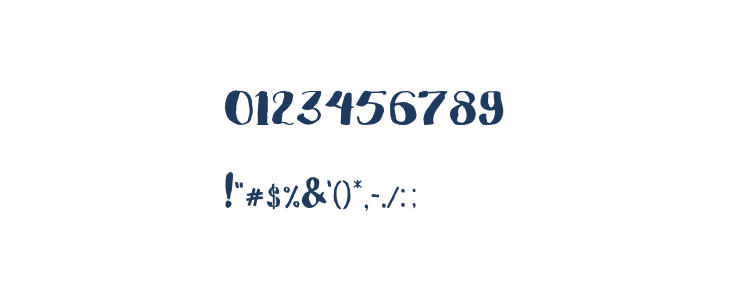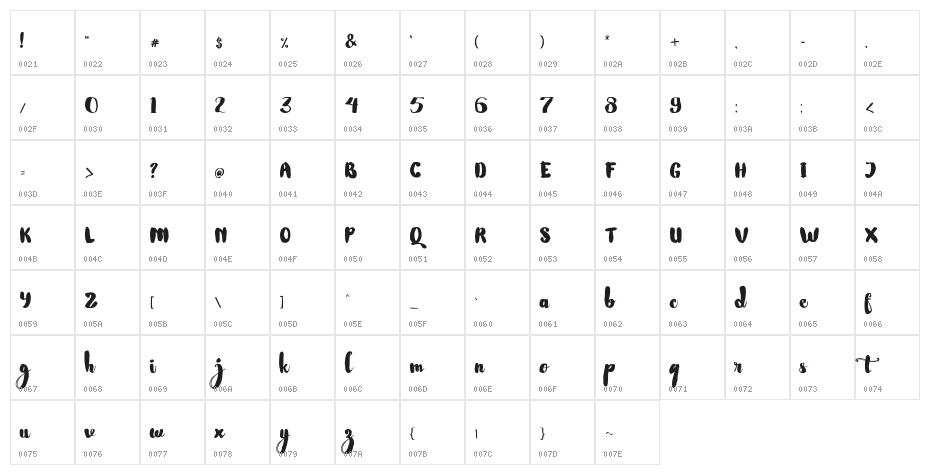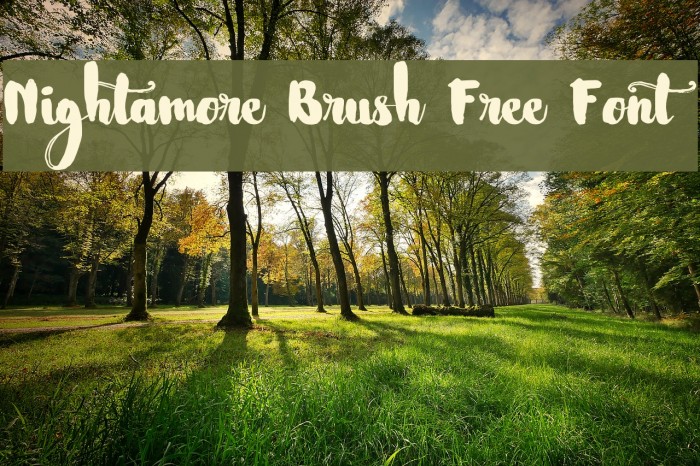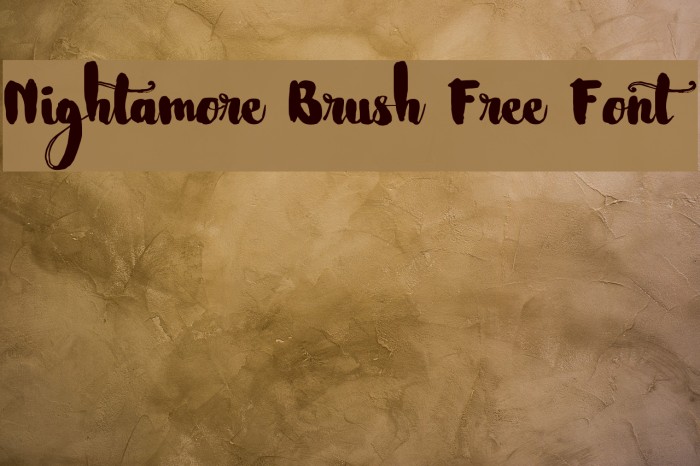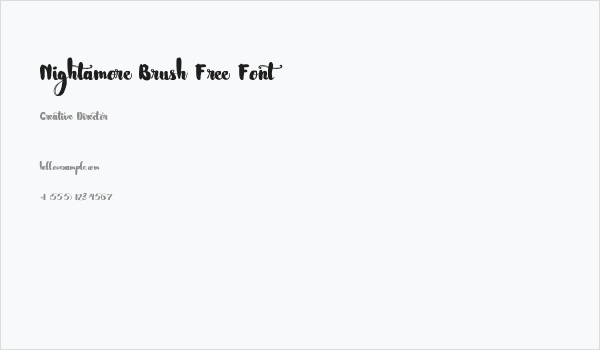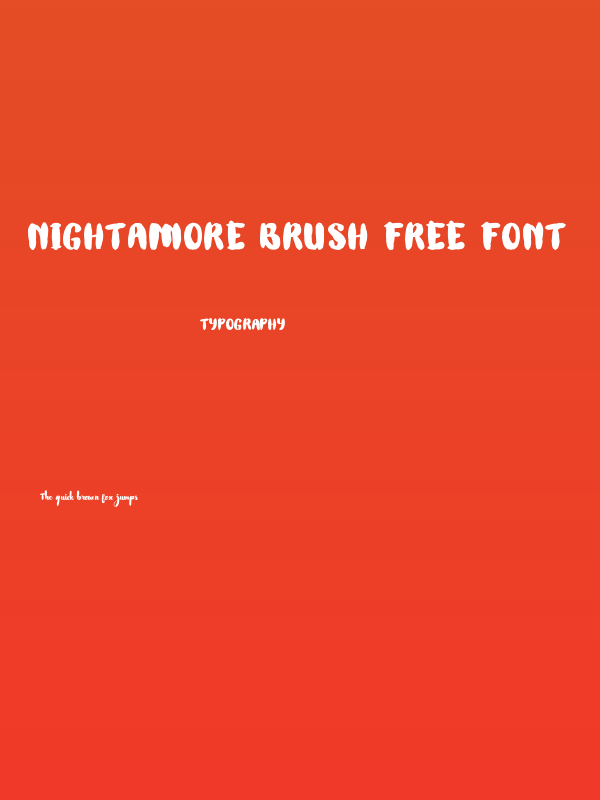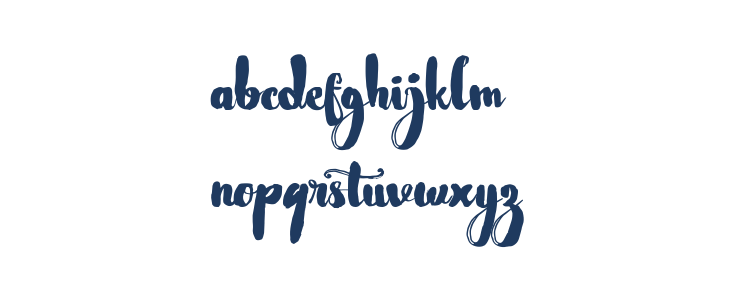
Nightamore Brush Free Font Font
Nightamore Brush Free Font Description
This font features a bold, brush-stroke style that exudes a sense of artistic flair and creativity. The uppercase letters are robust and dynamic, with a strong presence that commands attention. The lowercase letters have a more fluid and cursive appearance, adding a touch of elegance and movement. The numbers maintain the boldness of the uppercase letters, ensuring consistency throughout. Special characters are included, each designed with the same brush-like quality, making them perfect for creative projects. The overall design is expressive and lively, ideal for making a statement.
| Overall Style | Artistic, Expressive |
| Proposed Projects | Ideal for branding, posters, invitations, and any project requiring a bold, artistic touch. |